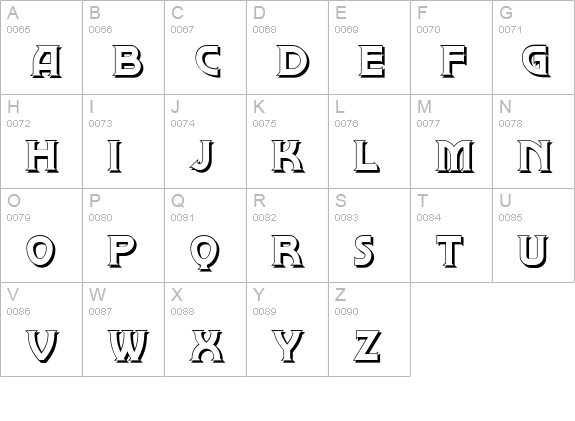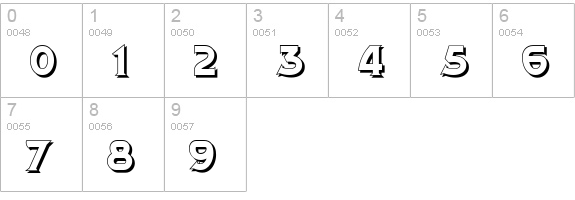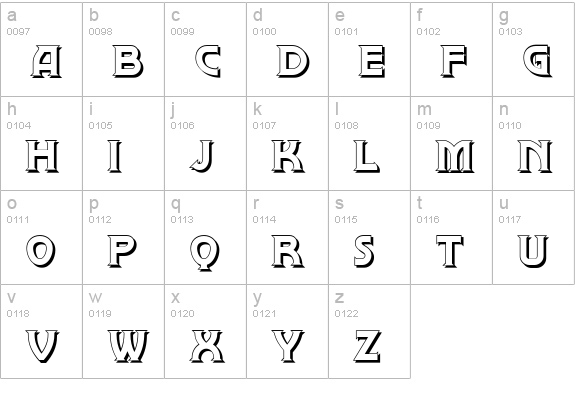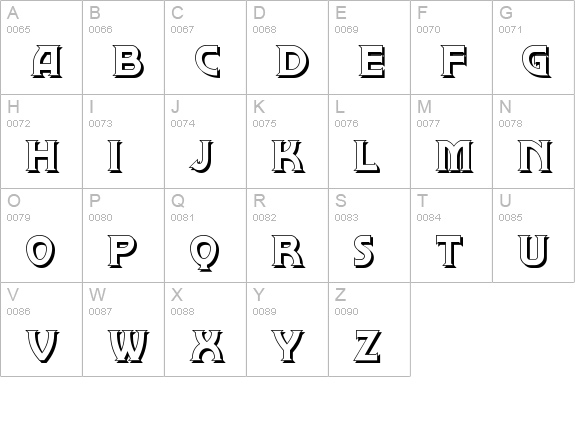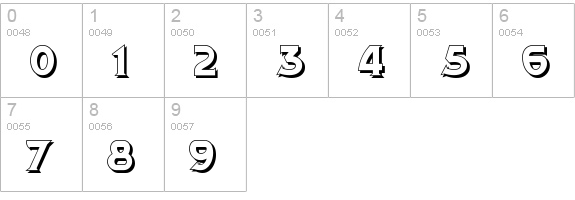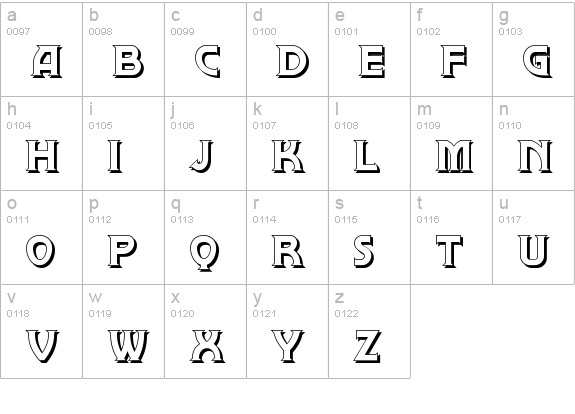
Brownwood Shadow NF Font Details
Brownwood Shadow NF is a stylish and sophisticated font that adds a touch of elegance to any design. With its unique shadow effect, this font stands out and catches the eye. The intricate details and clean lines of Brownwood Shadow NF make it a versatile choice for a wide range of projects, from invitations to logos to posters. And the best part? Brownwood Shadow NF is completely free to download at FontsMarket.com. Whether you are a designer looking to add a new font to your collection or someone in need of a fresh look for a project, Brownwood Shadow NF is the perfect choice. Download it today and elevate your designs with this stunning font.